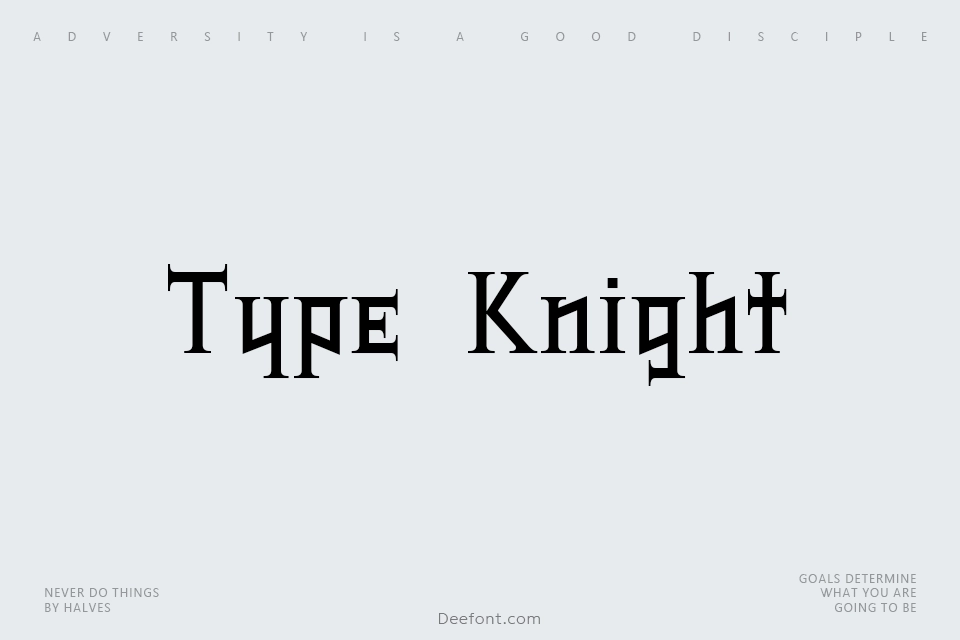
Type Knight Font
Type Knight is a bold and striking gothic-inspired font featuring sharp, angular edges and pronounced serifs that evoke medieval aesthetics. With uppercase letters that are particularly tall and narrow, and lowercase letters maintaining consistent style with slightly rounded forms, this decorative typeface delivers both character and legibility. Originally created in 2001, it has been downloaded over 47,000 times. Ideal for fantasy-themed designs, book covers, posters, and branding projects requiring a historical or gothic touch, Type Knight brings dramatic presence to headlines and logos while maintaining readability across all 100 carefully crafted characters.